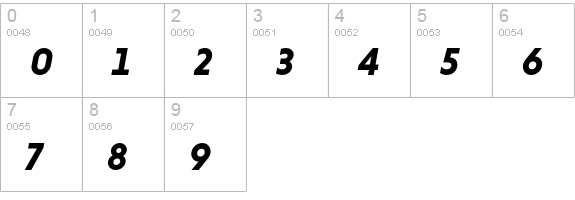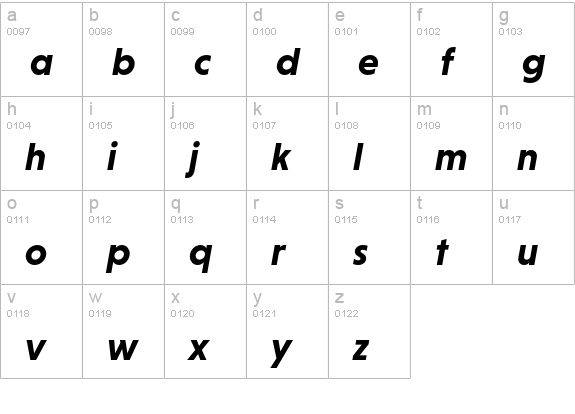
Niveau Grotesk Bold Italic is a strong, high-contrast, italic variant in the Niveau typeface family \xE2\x80\x94 well suited to headlines, attention-grabbing titles, and strong calls-to-action.
Niveau Grotesk Bold Italic is a striking and versatile typeface that exudes a sense of modernity and sophistication. Its bold and italic design adds a touch of flair to any project, making it perfect for headlines, titles, and branding materials. With its clean lines and sharp angles, Niveau Grotesk Bold Italic commands attention and makes a bold statement. And the best part? Niveau Grotesk Bold Italic is available for free download at FontsMarket.com. This means you can easily access and use this high-quality font for your designs without any cost. So why wait? Elevate your projects with Niveau Grotesk Bold Italic today!